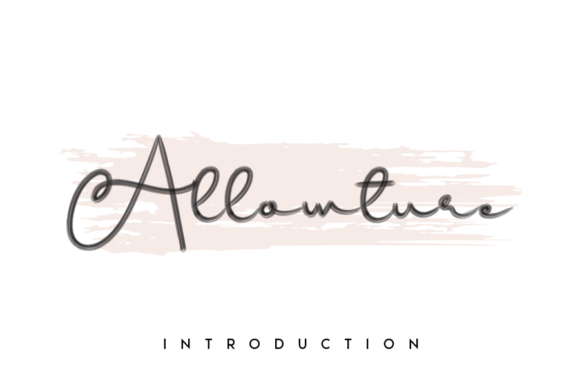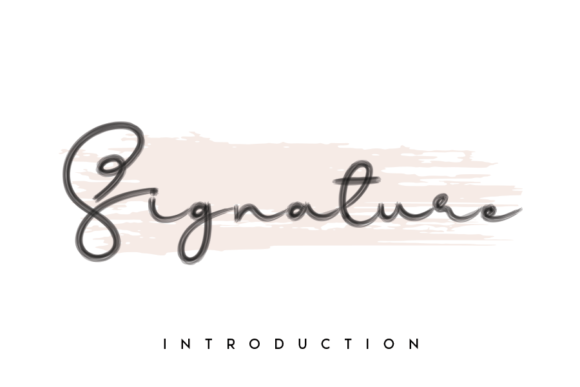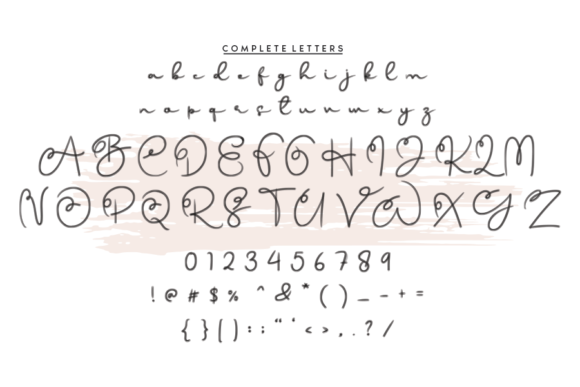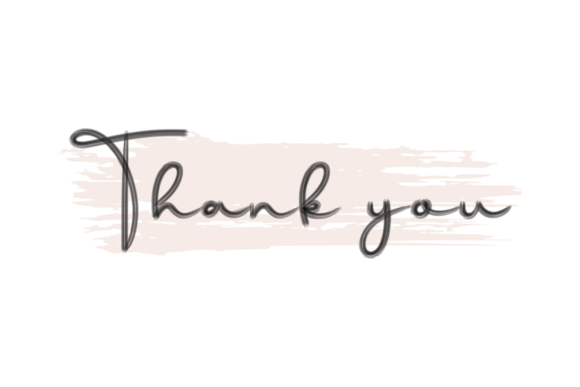
Introduction to Rosallita Font
Have you ever found yourself stuck on a creative project, struggling to convey the perfect message? I know I have. It’s those moments of frustration when you need a little inspiration to breathe life into your design. For me, it was discovering the enchanting Rosallita Font.
With its sweet and flowing handwritten style, Rosallita Font is the perfect design resource to elevate your creative project. Whether you’re working on a digital or print design, this high-quality font is sure to add a touch of elegance and sophistication. One of the best things about Rosallita Font is its versatility, making it perfect for a variety of designs, from invitations to social media graphics.
Key Features of Rosallita Font
- Features a transparent background, making it suitable for use on any background or design element.
- Includes multiple font styles and weights, allowing for versatility in your design projects.
- Designed with a high level of detail and precision, ensuring a crisp and clear display at resolutions up to 300 DPI.
- Supports a wide range of languages, making it a valuable resource for designers working on international projects.
- Perfect for use in logos, branding materials, and other creative projects where a touch of sophistication is required.
Honest Review: Rosallita Font
I recently had the chance to work with the Rosallita Font, and I must say it’s been a pleasant experience. This font is perfect for any creative project that requires a touch of elegance and sophistication. One of the standout features of the Rosallita Font is its high quality and versatility. It’s a great design resource that can be used in a variety of contexts, from headings to body text.
- ✨ High-quality design that looks great on both light and dark backgrounds
- ✨ Compatible with a wide range of creative projects, from print to digital media
However, I do have a few concerns:
- ⚠️ The font doesn’t come with a transparent background, which can limit its use in certain contexts
- ⚠️ Some users may find the font too ornate or distracting, depending on the project
Overall, I’m impressed with the Rosallita Font. Its high quality and versatility make it a valuable addition to any designer’s toolkit. While it may have some limitations, it’s definitely worth considering for your next creative project.
Rosallita Font
Tips for Getting the Most Out of Rosallita Font
To get the most out of the Rosallita Font, experiment with different font sizes and styles to create a unique look. You can also pair it with other design elements, such as images and graphics, to create a cohesive design.
Common Use Cases for Rosallita Font
The Rosallita Font is perfect for a variety of creative projects, including:
- Presentation design
- Document design
Alternatives to Rosallita Font
Lato is a sans-serif font that offers a clean and modern look perfect for creative projects that require a high-quality design resource. It’s available for free download with a transparent background, making it ideal for use on websites and digital applications. When to use: For projects that require a clean and minimalist aesthetic.
Lato Font compares to Rosallita Font in that it also offers a modern and sleek design, but with a more straightforward and simple look. While Rosallita Font has a more ornate feel, Lato Font is better suited for projects that require a more subtle and understated design.
Montserrat is a sans-serif font that originated in Buenos Aires and has a strong, geometric feel. It’s perfect for creative projects that require a high-quality design resource with a transparent background. When to use: For projects that require a strong and urban aesthetic.